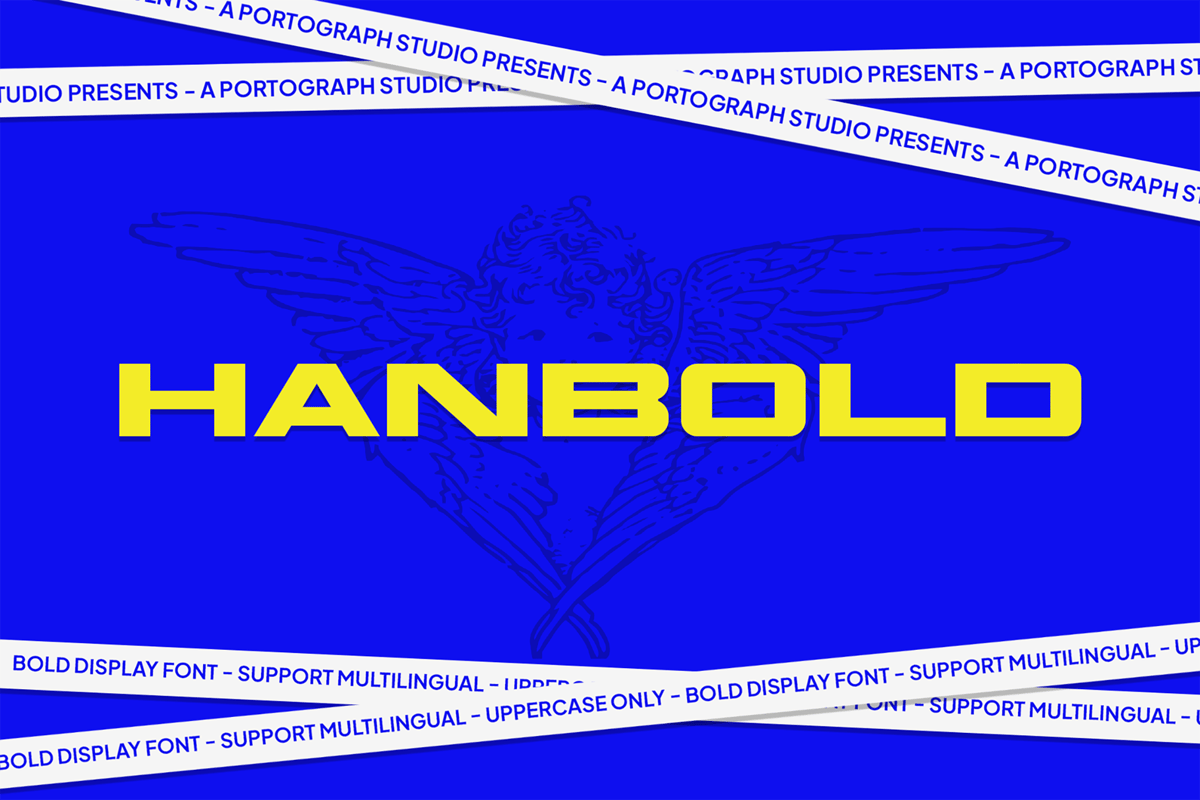
Handbold - Display Font
Command attention with Handbold, a powerful uppercase display font engineered for maximum visual impact and crystal-clear readability. This contemporary typeface showcases bold geometric letterforms with razor-sharp edges and commanding proportions that demand immediate attention and exude confidence. The clean, modern aesthetic makes it an ideal choice for cutting-edge brands, technology projects, and striking visual identities that need to make a statement. Package includes: OTF format TTF for...